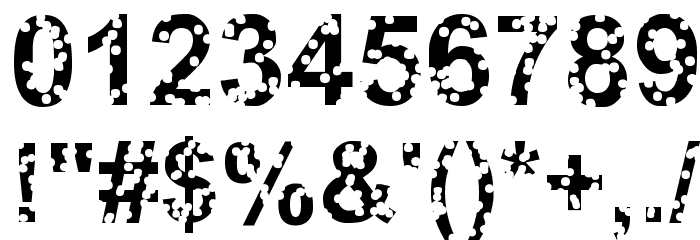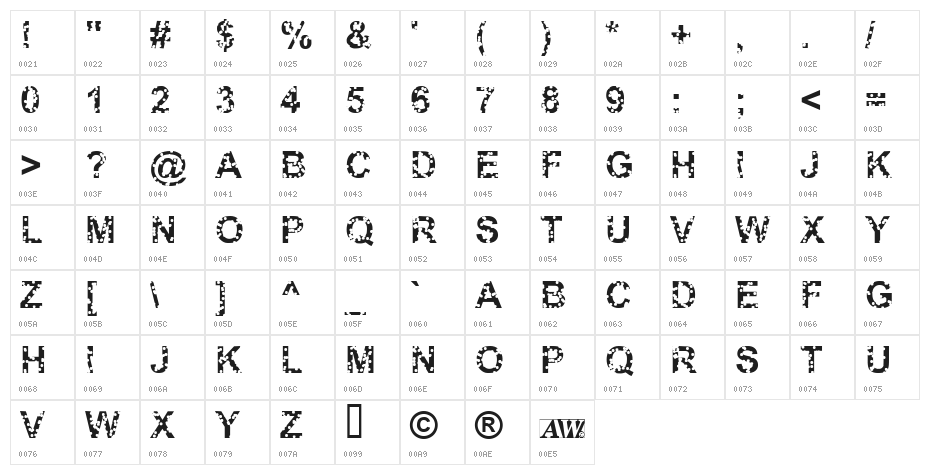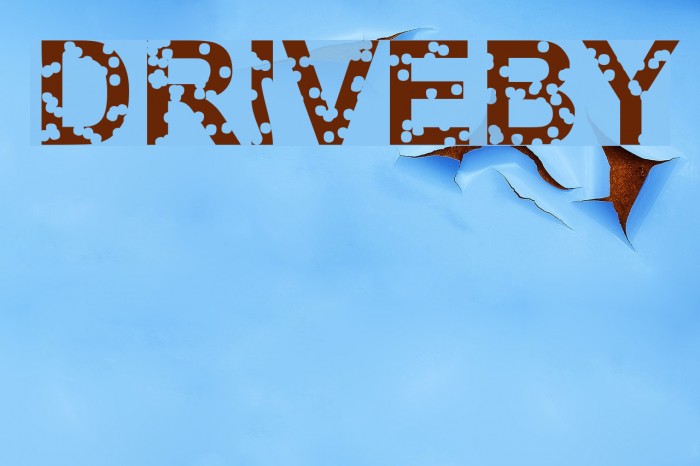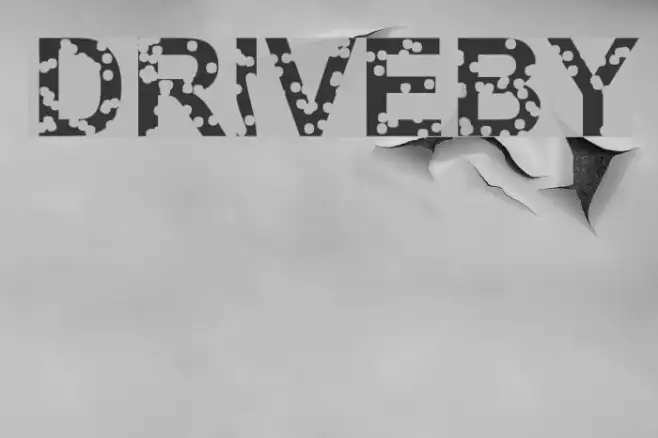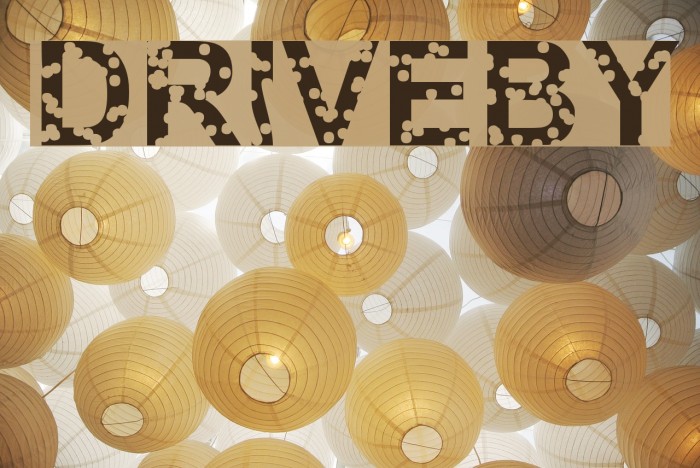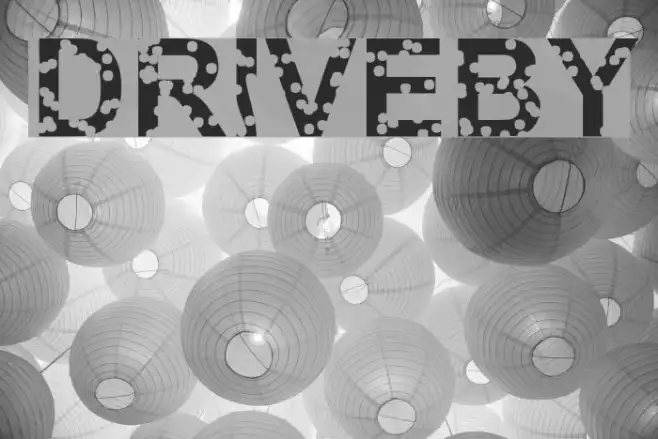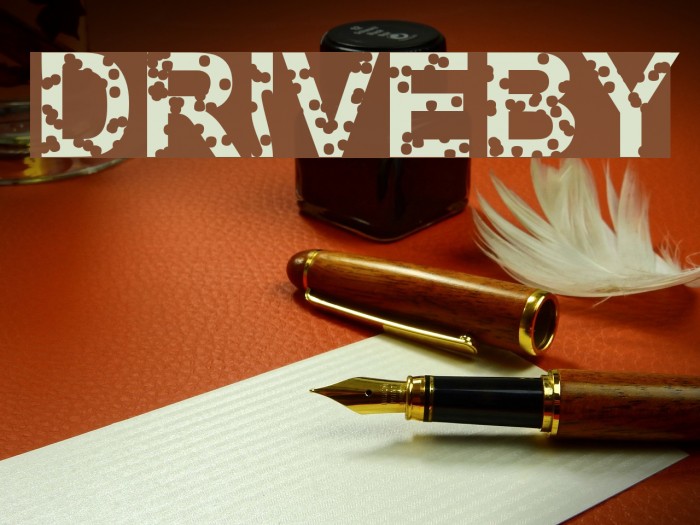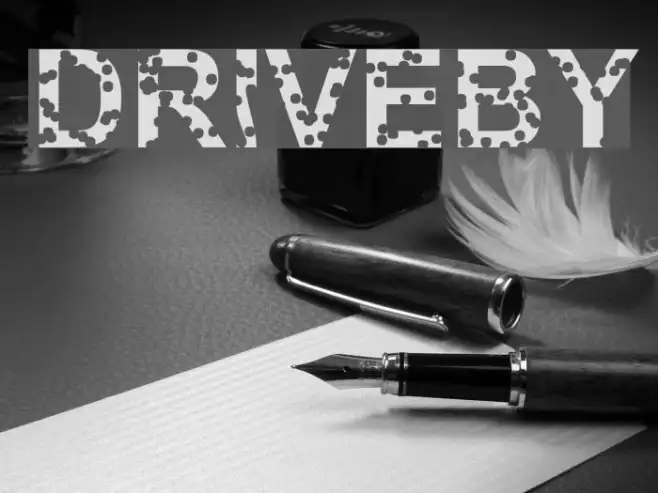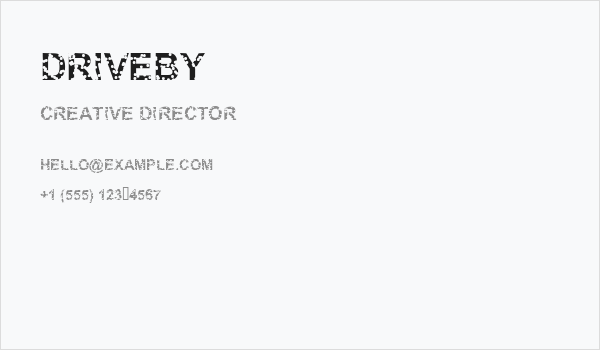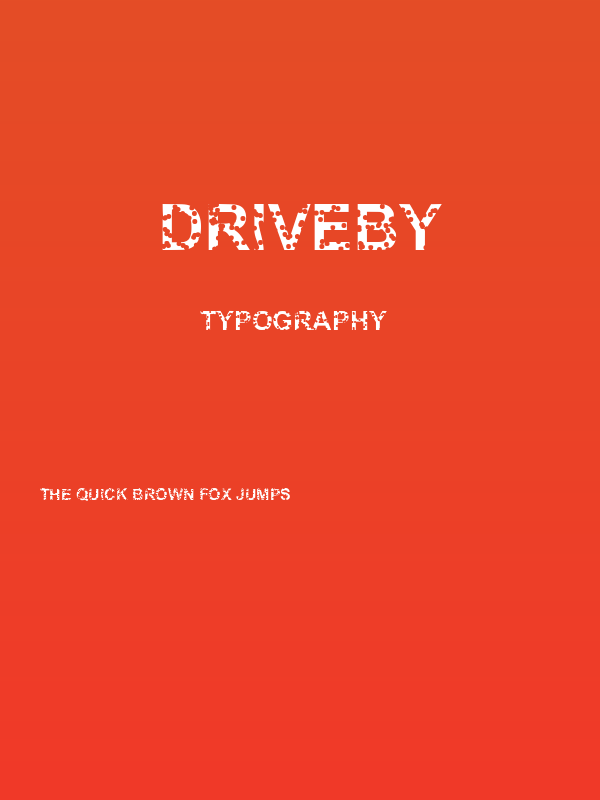
Driveby Font
Driveby Description
This font features a bold and impactful design with a unique distressed texture that gives it a rugged, urban feel. The characters are uppercase and numerals, with a consistent pattern of irregular holes and rough edges, creating a gritty and dynamic appearance. The style is reminiscent of street art or graffiti, making it stand out with its bold presence. The font's design is highly decorative, with each letter and number maintaining a consistent weight and width, ensuring readability despite its complex texture. The spacing between characters is normal, allowing for clear legibility while maintaining its distinctive style.
Adam Wunn
| Overall Style | Urban, Gritty, Decorative |
| Use Case | Headlines, Posters, Logos |
| Proposed Projects | Ideal for street art-inspired designs, edgy posters, album covers, and urban-themed branding. |